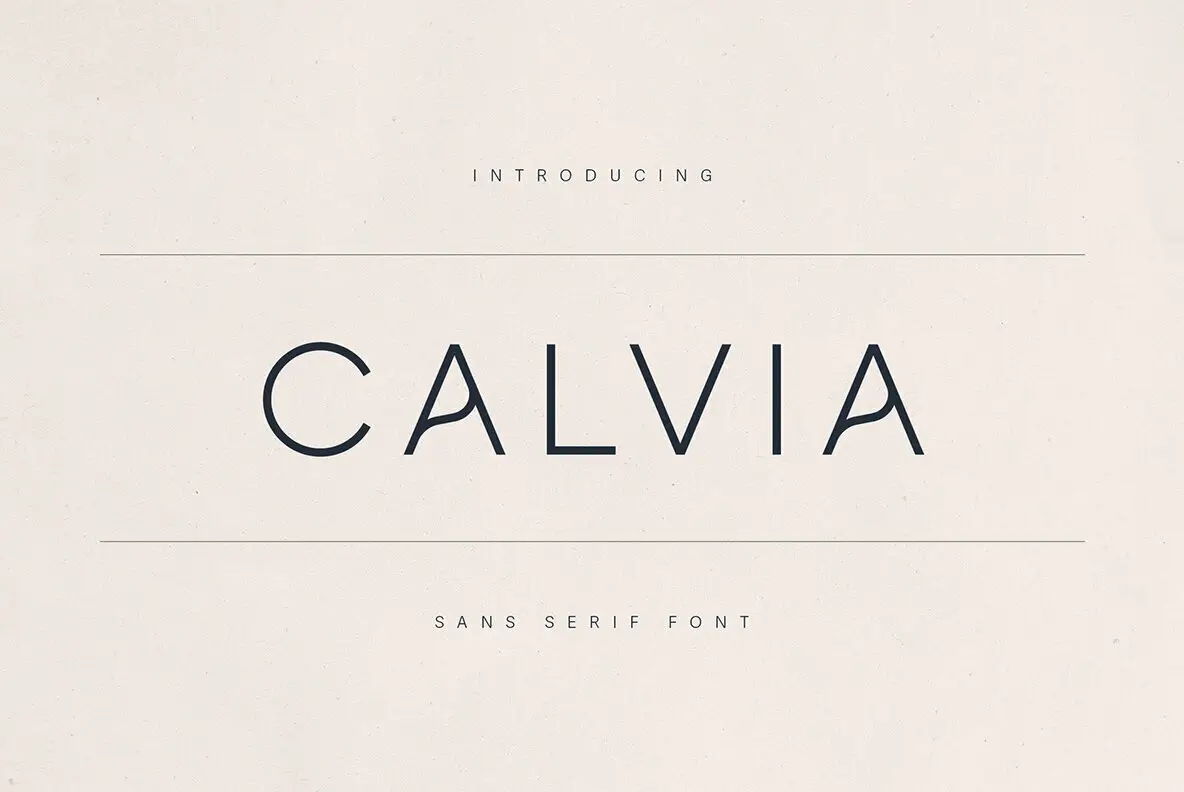
Calvia Font
Calvia Regular
Calvia, a modern sans-serif typeface, brings clarity, elegance, and quiet confidence to the forefront of design. With its smooth curves, clean lines, and subtle character quirks, it effortlessly complements lifestyle brands, interior design studios, skincare products, home goods, and modern editorial layouts. Drawing inspiration from Scandinavian simplicity and timeless typography, Calvia infuses a sense of calm and sophistication into any design project. The font's versatile letterforms are ideal for refined logos, serene product packaging, high-end websites, and multilingual branding. Whether crafting designs for a wellness label, boutique brand, or creative agency, Calvia enhances your work with a unique yet unobtrusive style. It supports over 80 languages, making it a truly inclusive typeface.Calvia – Elegant Minimalist Sans Serif Font